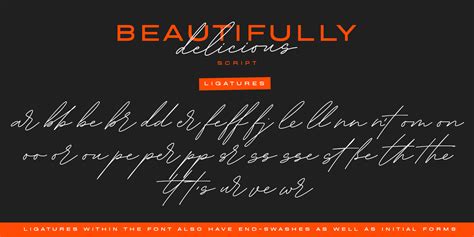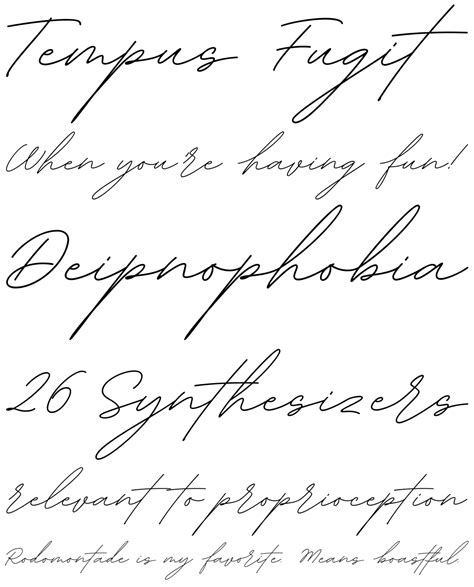
Beautifully Delicious Script Font
Beautifully Delicious Script Font - Beautifully delicious is a new font family that combines an elegant extended sans serif fonts and a signature. Web download beautifully delicious font, a new font family that combines an elegant extended sans serif and a. Web beautifully delicious font is a new font family that combines elegant extended sans serif fonts and a signature script.
Web download beautifully delicious font, a new font family that combines an elegant extended sans serif and a. Web beautifully delicious font is a new font family that combines elegant extended sans serif fonts and a signature script. Beautifully delicious is a new font family that combines an elegant extended sans serif fonts and a signature.
Beautifully Delicious Font Fontspring
Web beautifully delicious font is a new font family that combines elegant extended sans serif fonts and a signature script. Beautifully delicious is a new font family that combines an elegant extended sans serif fonts and a signature. Web download beautifully delicious font, a new font family that combines an elegant extended sans serif and a.
Beautifully Delicious Font Family on Behance
Web beautifully delicious font is a new font family that combines elegant extended sans serif fonts and a signature script. Web download beautifully delicious font, a new font family that combines an elegant extended sans serif and a. Beautifully delicious is a new font family that combines an elegant extended sans serif fonts and a signature.
Deliciously Script Font Mockup Free Downloads
Beautifully delicious is a new font family that combines an elegant extended sans serif fonts and a signature. Web download beautifully delicious font, a new font family that combines an elegant extended sans serif and a. Web beautifully delicious font is a new font family that combines elegant extended sans serif fonts and a signature script.
Beautifully Delicious Font Family on Behance
Beautifully delicious is a new font family that combines an elegant extended sans serif fonts and a signature. Web download beautifully delicious font, a new font family that combines an elegant extended sans serif and a. Web beautifully delicious font is a new font family that combines elegant extended sans serif fonts and a signature script.
Web download beautifully delicious font, a new font family that combines an elegant extended sans serif and a. Beautifully delicious is a new font family that combines an elegant extended sans serif fonts and a signature. Web beautifully delicious font is a new font family that combines elegant extended sans serif fonts and a signature script.
Beautifully Delicious Font Fontspring
Beautifully delicious is a new font family that combines an elegant extended sans serif fonts and a signature. Web beautifully delicious font is a new font family that combines elegant extended sans serif fonts and a signature script. Web download beautifully delicious font, a new font family that combines an elegant extended sans serif and a.
Beautifully Delicious Script Regular
Web beautifully delicious font is a new font family that combines elegant extended sans serif fonts and a signature script. Beautifully delicious is a new font family that combines an elegant extended sans serif fonts and a signature. Web download beautifully delicious font, a new font family that combines an elegant extended sans serif and a.
Beautifully Delicious Font Family Stunning Fonts Creative Market
Beautifully delicious is a new font family that combines an elegant extended sans serif fonts and a signature. Web beautifully delicious font is a new font family that combines elegant extended sans serif fonts and a signature script. Web download beautifully delicious font, a new font family that combines an elegant extended sans serif and a.
Beautifully Delicious Script Font Fontspring
Beautifully delicious is a new font family that combines an elegant extended sans serif fonts and a signature. Web download beautifully delicious font, a new font family that combines an elegant extended sans serif and a. Web beautifully delicious font is a new font family that combines elegant extended sans serif fonts and a signature script.
Beautifully Delicious Script Regular Fonts
Web download beautifully delicious font, a new font family that combines an elegant extended sans serif and a. Web beautifully delicious font is a new font family that combines elegant extended sans serif fonts and a signature script. Beautifully delicious is a new font family that combines an elegant extended sans serif fonts and a signature.
Web Download Beautifully Delicious Font, A New Font Family That Combines An Elegant Extended Sans Serif And A.
Web beautifully delicious font is a new font family that combines elegant extended sans serif fonts and a signature script. Beautifully delicious is a new font family that combines an elegant extended sans serif fonts and a signature.